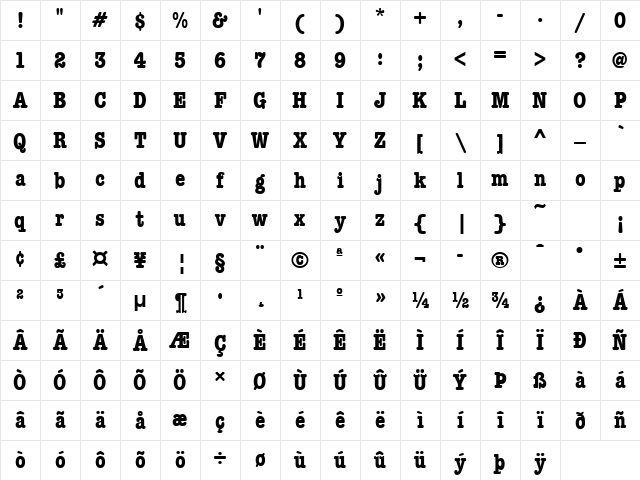
TypewriterCond Bold Free Font
TypewriterCond Bold
Design Context for TypewriterCond
TypewriterCond uses fixed-width spacing throughout, giving it the structured, systematic character associated with coding environments and technical documentation. Its bold stroke weight gives it real presence on the page.
Pro Tip: Use TypewriterCond with slightly increased line-height for extended reading - fixed-width spacing can feel dense in longer passages without extra breathing room.